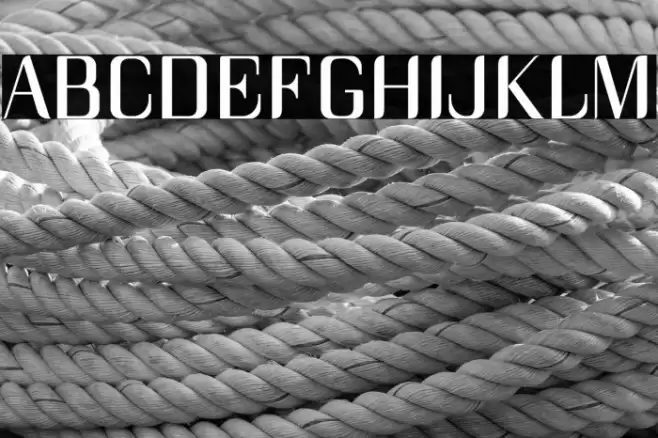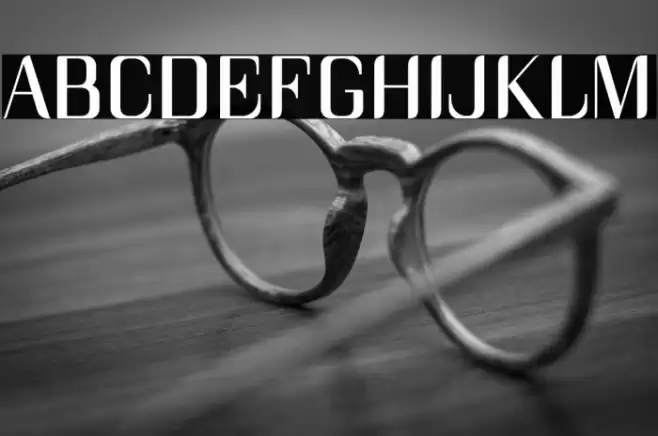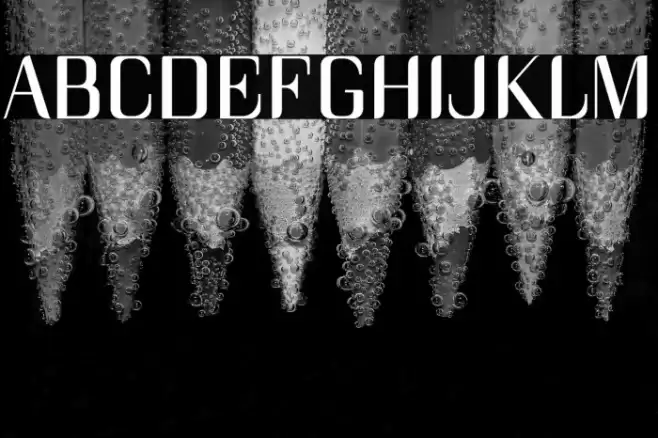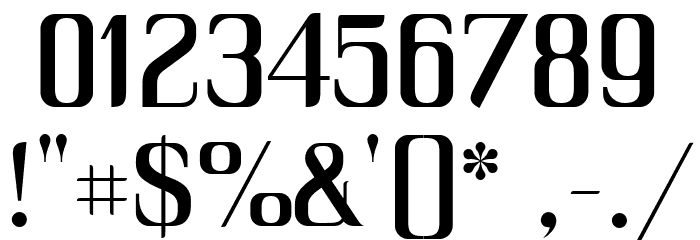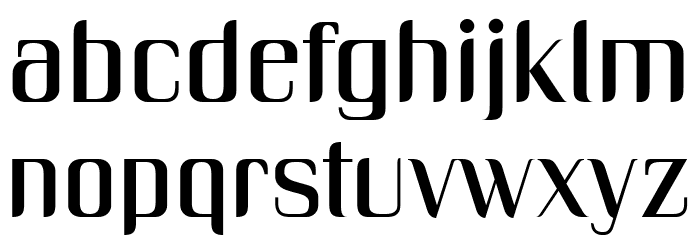
Unique Font
Unique Description
This font features a modern and sleek design with a unique blend of geometric and humanist elements. The uppercase letters are bold and slightly condensed, giving a strong and assertive appearance. The lowercase letters maintain a consistent style with smooth curves and clean lines, providing excellent readability. The numerals are well-proportioned and align perfectly with the overall aesthetic. Special characters are thoughtfully designed to complement the alphanumeric characters, ensuring a cohesive look. This font's versatility makes it suitable for a wide range of applications, from digital interfaces to print media.
A modern, sleek font with geometric and humanist elements, offering excellent readability from Cartoon fonts.
- Font: Unique
- Proposed Projects: Ideal for branding, digital interfaces, editorial design, and advertising campaigns.
- Width: Condensed
- Use Case: Headlines, Logos, Digital Interfaces
Unique UPPERCASE
Unique LOWERCASE
Unique OTHER CHARS